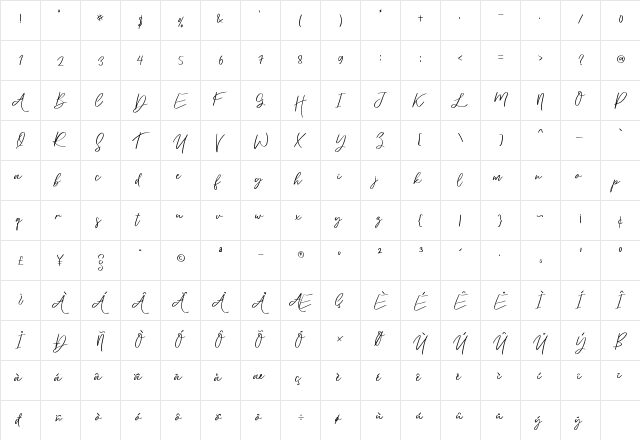
dreaming Regular
| Designer | AMINMARIO 2020 |
Design Context for dreaming Typeface
dreaming is a composed and adaptable typeface that performs quietly and consistently across a wide range of design contexts.